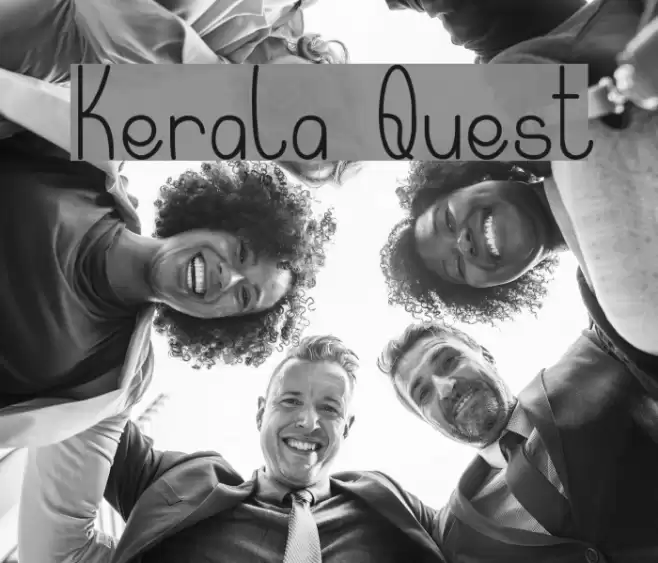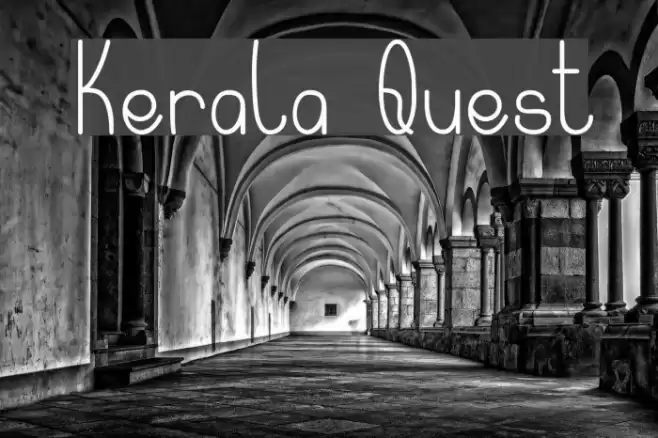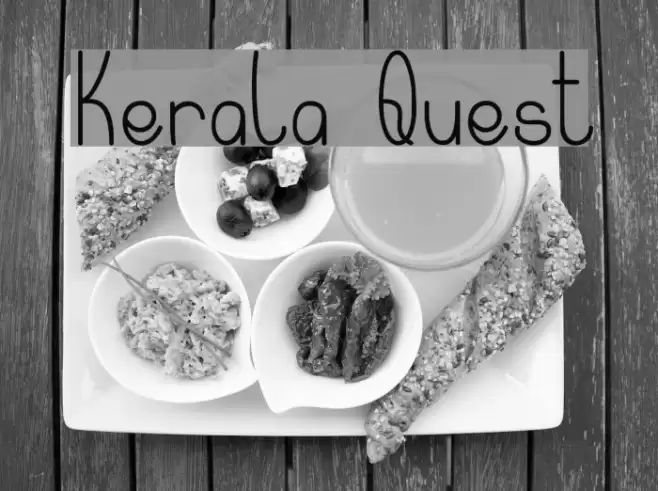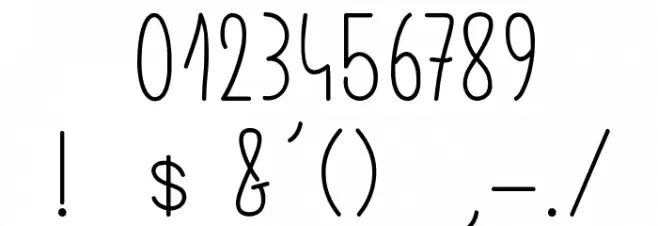
Kerala Quest Font
Kerala Quest Description
This font features a playful and whimsical design, characterized by its tall, narrow letters and unique, quirky elements. The uppercase letters have a distinct, almost hand-drawn quality with slight variations in line thickness, giving them a lively appearance. The lowercase letters maintain this playful style, with rounded forms and occasional loops that add to the font's charm. The numerals are consistent with the overall style, offering a cohesive look. Special characters are creatively integrated, maintaining the font's distinctive personality.
A playful, whimsical font with tall, narrow letters and quirky details from Uncategorized fonts.
- Proposed Projects: Ideal for children's books, creative branding, playful invitations, and artistic posters.
- Overall Style: Playful, Whimsical